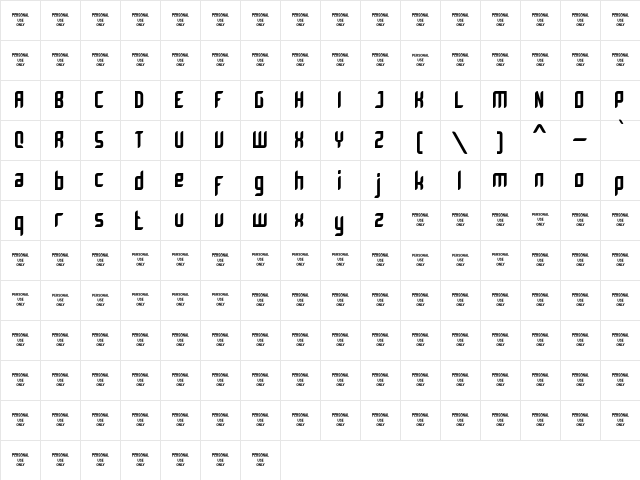
Bromount Personal Use Only Regular
| Designer | Fuad Hasan |
Design Context for Bromount Personal Use Only Typeface
Bromount Personal Use Only offers clean, dependable letterforms without strong stylistic allegiance, making it a practical choice for designers who need flexibility.